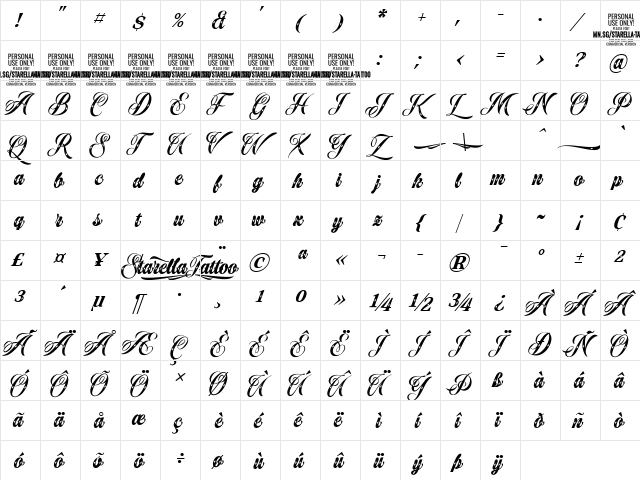
Starella Tattoo Deco PERSONAL Regular
Design Context for Starella Tattoo Deco PERSONAL Typeface
Starella Tattoo Deco PERSONAL is a composed and adaptable typeface that performs quietly and consistently across a wide range of design contexts.